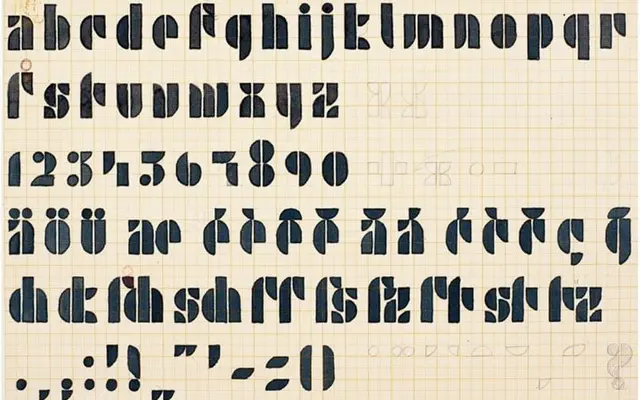
Architype Albers
The Foundry Types · Josef Albers · 1926
A revival of Josef Albers's 1926 grid-based alphabet, reducing letterforms to squares, triangles and circular arcs in a stencil-like construction drawn from Bauhaus ideals.
Part of The Foundry Types' Architype Konstrukt collection, this face reconstructs Albers's 1926 experimental alphabet published in Offset, Buch und Werbekunst. Letters are built strictly from geometric primitives, producing an open stencil quality that reflects the inter-war European modernist drive to reduce form to its barest elements. The character set is limited by design, as the experimental source material intended geometry over comprehensive coverage.
A revival of Josef Albers's 1926 grid-based alphabet, constructed entirely from geometric primitives: the square, triangle and circle arcs. The stencil-like construction and avant-garde origins place it firmly in display and experimental categories.